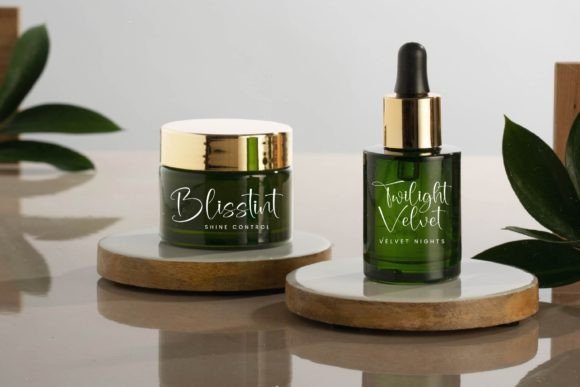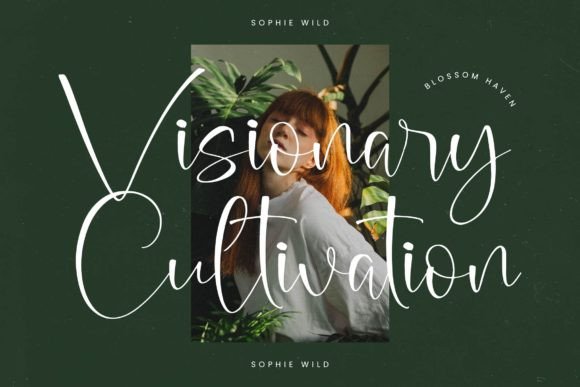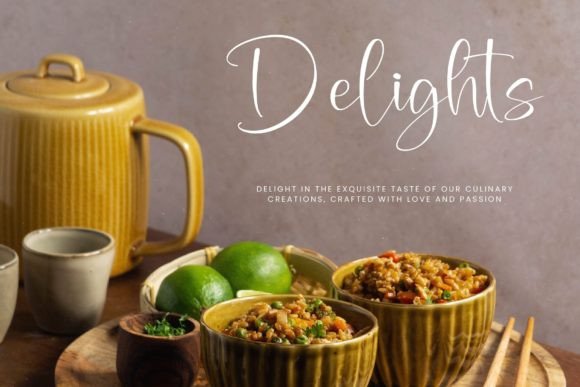
Introduction to Romantic Matched Font
As a designer, have you ever found yourself staring at a blank canvas, eager to bring your creative vision to life? The blank page can be intimidating, but the right font can be the perfect catalyst to spark inspiration. For me, that font is the Romantic Matched Font – a modern and charming handwritten font that exudes elegance and personality.
With its graceful, flowing strokes and sophisticated character, the Romantic Matched Font is a design resource that elevates any project to the next level. Whether you’re working on a high-end invitation, personal branding, or a chic editorial design, this font is the perfect way to add a touch of refinement and warmth to your work. And the best part? It’s available for free download, making it an accessible and valuable asset for designers.
As a design tool, the Romantic Matched Font offers a level of sophistication that’s hard to find in other fonts. Its high-quality design makes it perfect for creative projects that require a touch of elegance, and its transparent background allows for seamless integration with any design.
Key Features of Romantic Matched Font
- High-quality, unique font design perfect for creative projects and romantic themes.
- Designed with a romantic and elegant aesthetic, ideal for wedding invitations, love letters, and other creative projects.
- Supports multiple languages and characters, making it a versatile design resource for global creative projects.
Honest Review: Romantic Matched Font
I recently stumbled upon the Romantic Matched Font, and I must say it’s a lovely addition to any design project. As a designer, I appreciate high-quality fonts that can elevate the aesthetic of a creative project. This font certainly delivers on that front.
What works well about the Romantic Matched Font is its elegant and whimsical feel, perfect for a romantic-themed design project. The font is available for free download, making it an excellent design resource for those on a budget. The transparent background option also makes it easy to customize and combine with other design elements.
Here are some of its notable features:
- Elegant and whimsical feel
- Perfect for romantic-themed design projects
However, there are a few limitations to consider: ⚠️
- May not be suitable for bold or modern designs
- Limited customization options
- Valentine’s Day cards and gifts
- Love-themed posters and prints
- Experiment with different font sizes and styles to create a unique look
- Pair the font with a matching background or texture for a cohesive design
- Use the font in conjunction with other design elements, such as images and graphics
- Choose a transparent background to let the delicate design of the font shine.
- Combine the font with a beautiful floral pattern or a romantic quote to add depth to the design.
- Use a light-colored background to make the font stand out.
- Pair the font with a high-quality image of a wedding venue or a romantic landscape.
- Choose a high-quality image of a vintage background to add depth to the design.
- Combine the font with a beautiful, hand-drawn illustration to add a touch of whimsy.
- Use a light-colored background to make the font stand out.
- Pair the font with a high-quality image of a vintage love letter or a romantic photo.
Overall, I’m impressed with the Romantic Matched Font. While it may have some limitations, its high-quality design and free download make it a valuable addition to any designer’s toolkit. It’s perfect for those looking to add a touch of romance to their creative project.✨
Romantic Matched Font
The Romantic Matched Font is a beautiful, high-quality design resource perfect for any creative project. It’s available for free download and features a transparent background, making it easy to integrate into your design.
Q: Is the Romantic Matched Font suitable for high-resolution designs?
Yes, the Romantic Matched Font is designed to be a high-quality design resource, making it perfect for high-resolution designs. With its crisp and clear typography, you can be sure that your designs will look great even at large sizes and high resolutions.